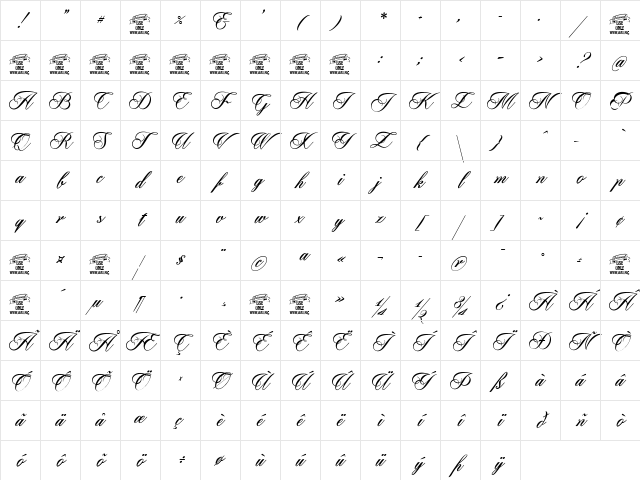
Pharmount Personal Use Only Regular
Foundry: Mans Greback
Designer: M￿ Greb￿
Year: 2014
Design Context for Pharmount Personal Use Only
Pharmount Personal Use Only is a composed and adaptable typeface that performs quietly and consistently across a wide range of design contexts.